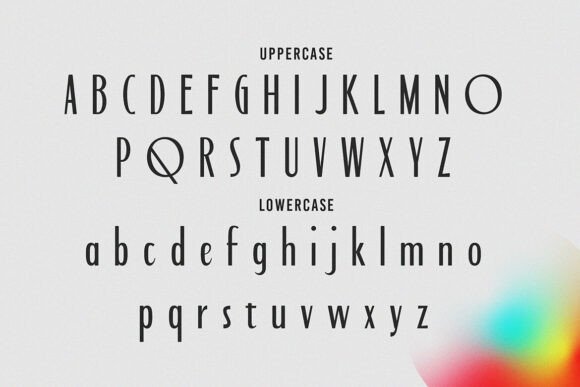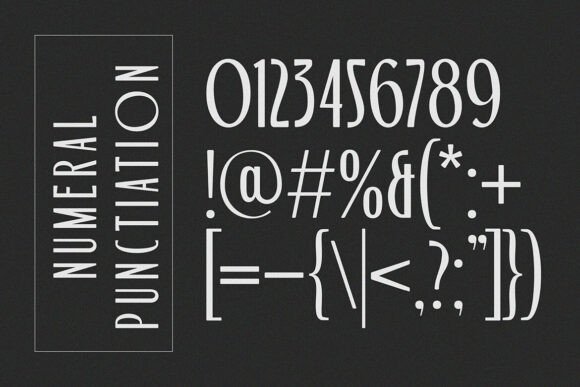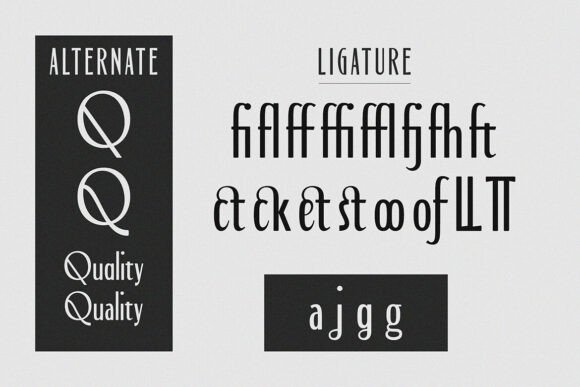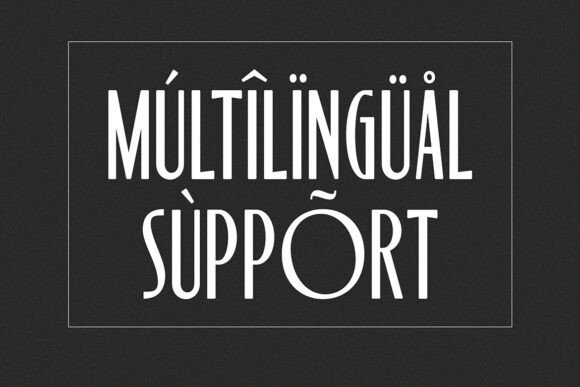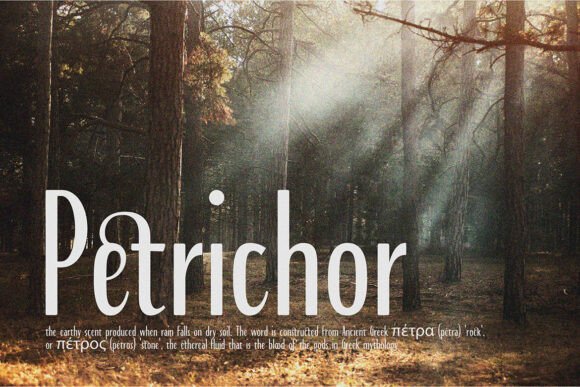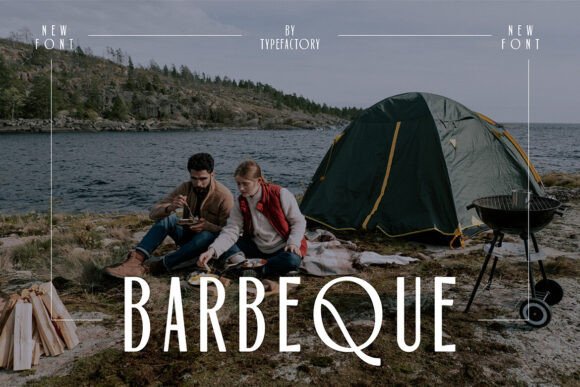
Unlocking the Power of Bourned Font
Have you ever stared at a blank page, desperately searching for the perfect font to elevate your design? The struggle is real, but what if you stumbled upon a font that not only solved that problem but also left a lasting impression? For designers, the quest for the perfect font is a never-ending journey, but the Bourned Font is here to change that.
Bourned Font is a game-changing display sans typeface that effortlessly combines modern aesthetics with a distinct character. Its clean, geometric lines and bold forms make it perfect for creating striking headlines, posters, and branding that stand out from the crowd. With its contemporary design offering both readability and visual impact, the Bourned Font is an invaluable asset for designers seeking to add a sleek, modern touch to their projects.
Bourned Font Key Features
- Font Family: Bourned Font is a unique sans-serif font with a distinctive aesthetic.
- Size: Bourned Font comes in 6 font sizes, ranging from 8pt to 72pt, providing versatility for different design applications.
- Resolution: Optimized for high-resolution displays, making it suitable for use in digital media, such as websites, mobile apps, and social media platforms.
- Unique Characteristics: The font features a distinctive rounded edge and a modern, clean design, making it an excellent choice for modern branding and design projects.
- Language Support: Supports a wide range of languages, including Latin, Cyrillic, and Greek scripts, ensuring its usability in various cultural contexts.
Bourned Font Review
Overall, I have mixed feelings about the Bourned Font. It’s a bold, unique choice that can add some personality to your designs. Here’s what I like and dislike about it.
- Uniqueness: Bourned Font stands out from the crowd with its distinctive letterforms and quirky flair.
- Expressiveness: This font is perfect for conveying a sense of playfulness and whimsy in your designs.
- Creativity: It’s ideal for projects that require a touch of sophistication and elegance, such as branding or packaging.
- Lack of legibility: At smaller font sizes, Bourned Font can be difficult to read, which may not be suitable for body text.
- Not ideal for long blocks of text: Due to its unique style, Bourned Font may not be the best choice for large paragraphs or articles.
While Bourned Font has its limitations, it can still be a great choice for specific design projects. If you’re looking for a bold, eye-catching font, this might be the one for you. However, if you need a font that’s easy to read at small sizes, you might want to consider other options.
For best results, use the Bourned Font in headings and titles to create a visually striking design.
Use the Bourned Font in combination with bold lines and bright colors to create eye-catching graphics.
Use the Bourned Font in headings and titles to add a touch of elegance to your presentations and documents.
Use the Bourned Font in bold headings and titles to create visual interest.
Combine the Bourned Font with bold lines and bright colors to create eye-catching graphics.
Experiment with different font sizes and styles to create a unique look.